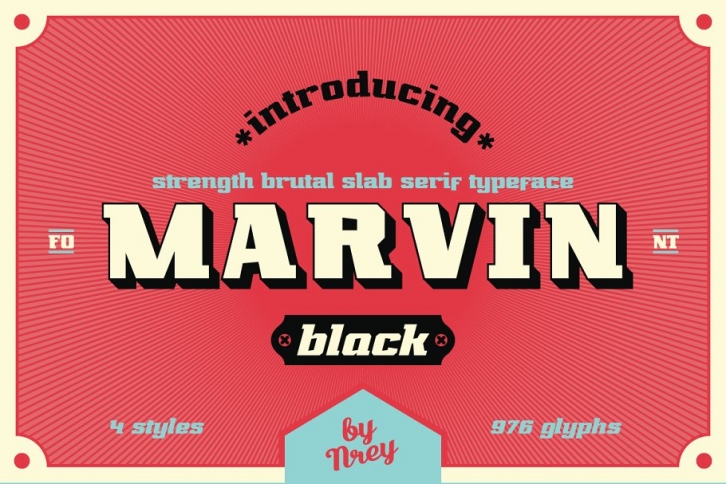
Hello! Introducing MARVIN black - strong brutal slab serif typeface family.
Font inspired by Marvin Heemeyer history. It have strength, massive forms as bulldozer. Font looks amazing as alone words and as full text blocks. Also it good for bright captions and unforgettable logos It have supporting for many languages as: Czech, Danish and Norwegian, Deutsch, English, Espanol, French, Italiano, Magyar, Nederlands, Polish, Portuguese, Finnish, Swedish, Turkish, Russian and other based on extended latin.